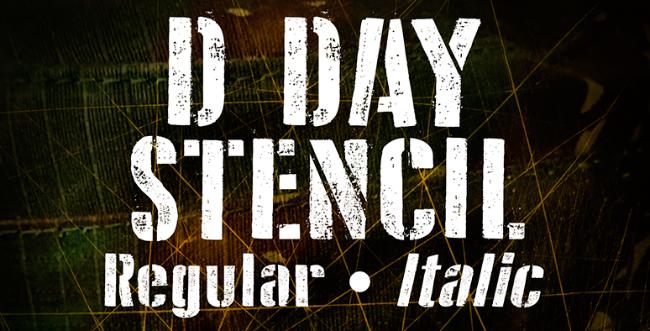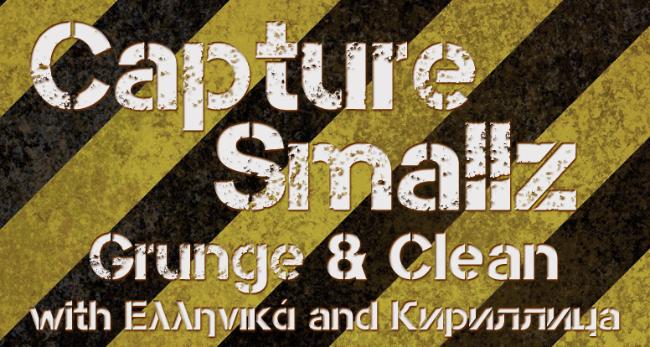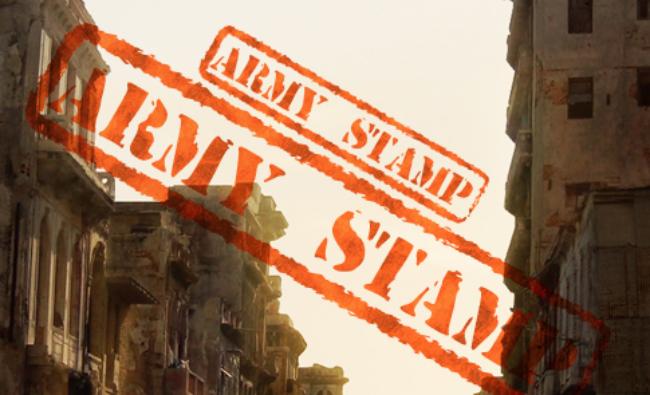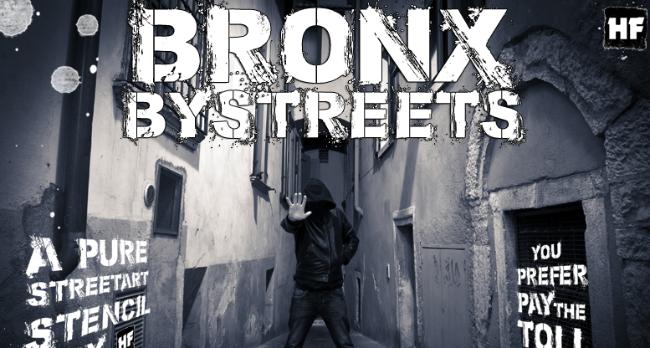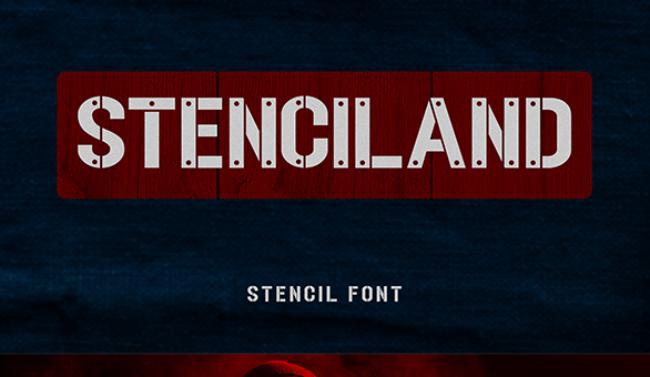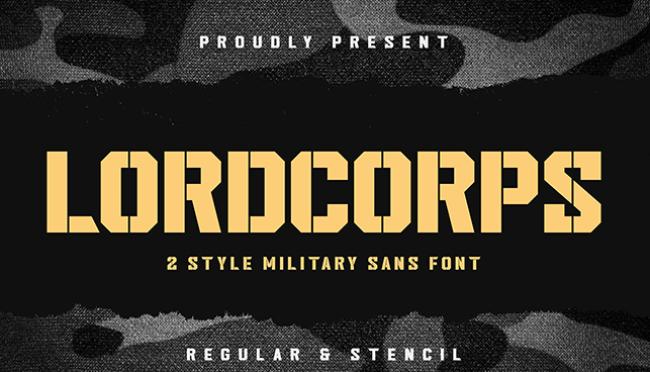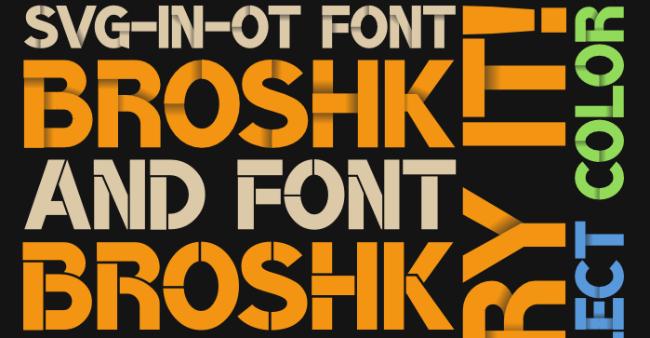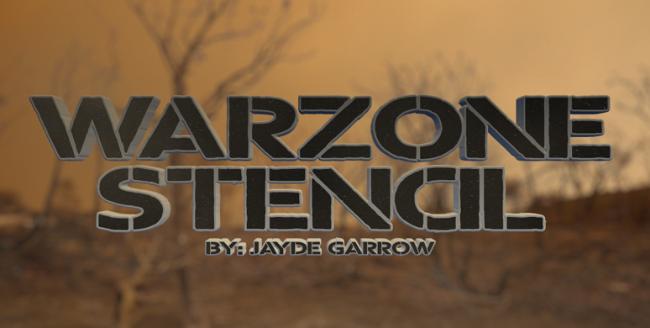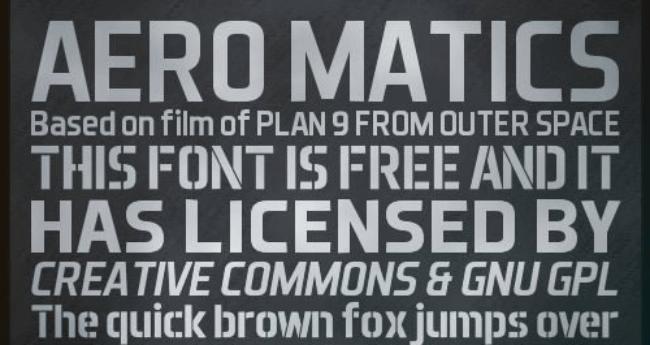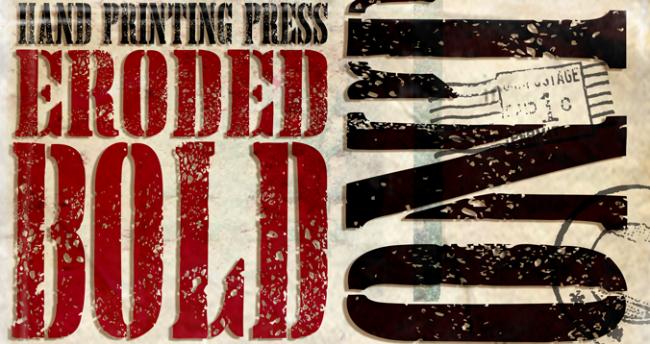
When it comes to design that conveys strength, discipline, and authority, military fonts stand out as a powerful choice. These fonts are widely used in branding, posters, video games, and media related to the armed forces, offering a rugged and commanding aesthetic that instantly grabs attention.
What Are Military Fonts?
Military fonts are typefaces inspired by the stenciled letters seen on military vehicles, uniforms, and equipment. They often feature bold, blocky letters with sharp edges or cut-out stencil designs, reflecting utility and durability. This style evokes a sense of order and toughness, making them perfect for projects that need to communicate strength and reliability.
Popular Styles of Military Fonts
There are various styles within the military font category. Some resemble the classic stenciled look, with breaks in the letters that mimic spray-painted markings on crates or vehicles. Others are solid, block letters that convey power and solidity without the cut-outs. Additionally, some military fonts have a distressed or worn effect, adding a vintage or battle-hardened feel.
Military Poster
When you need a typeface that commands attention and respect, Military Poster delivers with unwavering authority. This bold, structured font captures the essence of official military communications, making it perfect for designs that require a sense of discipline and strength. Whether you’re creating propaganda-style posters, military-themed graphics, or any project that needs to convey power and order, this font stands at attention and gets the job done.
Stamped
There’s something deeply satisfying about the authentic look of rubber stamp impressions, and Stamped captures that tactile quality perfectly. This font brings the nostalgic charm of vintage office stamps and official documents to your digital designs. With its slightly worn edges and authentic stamped appearance, it’s ideal for creating retro branding, vintage posters, or adding an official government document feel to your projects.
D Day Stencil
Inspired by the historic markings found on military equipment and vehicles during World War II, D Day Stencil brings authentic wartime typography to modern design. This stencil font perfectly recreates the utilitarian aesthetic of military logistics, where clarity and durability were paramount. It’s an excellent choice for historical projects, military commemorations, or any design that needs to evoke the gravity and significance of wartime communication.
Capture Smallz
Sometimes the most impactful designs come in compact packages, and Capture Smallz proves this point brilliantly. This condensed military-style font maximizes readability while maintaining a strong, authoritative presence. Perfect for headlines, badges, or any situation where you need to pack maximum punch into minimal space, it demonstrates that size doesn’t always determine impact in typography.
Army Stamp
Drawing inspiration from the countless rubber stamps that have marked military documents throughout history, Army Stamp brings institutional authority to your designs. This font perfectly captures the no-nonsense efficiency of military bureaucracy, with clean lines and a solid presence that speaks of official business. It’s particularly effective for creating authentic-looking military documents, vintage government communications, or adding credibility to formal announcements.
Bronx Bystreets
Street smart and unapologetically urban, Bronx Bystreets brings the raw energy of city warfare to typography. This font channels the gritty atmosphere of urban conflict zones, where survival depends on quick thinking and bold action. With its rough edges and street-tested durability, it’s perfect for gaming graphics, urban-themed designs, or any project that needs to convey toughness and street credibility.
Punishment
Some fonts whisper, others shout, but Punishment commands absolute silence with its intimidating presence. This heavy-duty typeface doesn’t ask for attention—it demands it. With letterforms that feel carved from stone and tempered in battle, it’s the perfect choice for projects that need to convey consequences, authority, or uncompromising strength. Whether you’re designing for action movies, military games, or powerful brand statements, this font means business.
Wargate
Like a fortified entrance to a military compound, Wargate stands as an imposing barrier between the ordinary and the extraordinary. This font embodies the strategic thinking and calculated precision of military planning, with letterforms that suggest both protection and power. It’s an excellent choice for security companies, military contractors, or any brand that wants to project an image of impenetrable strength and tactical superiority.
Panfleta Stencil
Born from the tradition of revolutionary pamphlets and underground communications, Panfleta Stencil carries the spirit of grassroots movements and covert operations. This stencil font perfectly captures the urgency and authenticity of messages that need to be reproduced quickly and distributed widely. It’s ideal for protest graphics, underground publications, or any design that needs to feel genuinely handmade and politically charged.
Stenciland
Welcome to Stenciland, where functionality meets artistry in the most practical way possible. This versatile stencil font draws from the rich tradition of utilitarian marking systems used across military and industrial applications. With its clean cuts and reliable readability, it bridges the gap between purely functional military stencils and modern design aesthetics, making it perfect for contemporary projects that need a touch of industrial authenticity.
Lordcorps
Command structure matters in military operations, and Lordcorps embodies the hierarchy and authority of high-ranking officials. This font carries itself with the dignity of a seasoned commander, combining traditional military aesthetics with a refined sense of leadership. Perfect for corporate military contractors, official ceremonies, or any project that needs to convey both military precision and executive authority.
BroshK
Sometimes military typography needs to break the rules, and BroshK does exactly that with rebellious style. This font combines military structure with unconventional flair, creating a typeface that’s both disciplined and disruptive. It’s perfect for modern military-themed games, edgy brand identities, or any project that wants to challenge traditional military aesthetics while maintaining that essential sense of strength and purpose.
Alberto Stencil
Named with the familiarity of a trusted comrade, Alberto Stencil brings a personal touch to military-grade typography. This font manages to feel both professional and approachable, combining the precision of stencil cutting with a more humanized character set. It’s excellent for military memorials, veteran organizations, or any project that needs to honor the human element within military service while maintaining operational clarity.
Army Buster
When conventional forces aren’t enough, you call in Army Buster. This font packs the explosive power of specialized military units, with letterforms that suggest overwhelming force and tactical superiority. Built for situations that demand maximum impact, it’s the perfect choice for action-packed designs, military gaming interfaces, or any project that needs to convey the devastating effectiveness of elite military operations.
Warzone Stencil
Forged in the heat of active combat zones, Warzone Stencil carries the authenticity of battlefield communications. This font understands that in conflict situations, clear communication can mean the difference between life and death. With its battle-tested reliability and unmistakable military aesthetic, it’s ideal for military simulations, war documentaries, or any design that needs to convey the serious reality of armed conflict.
Aero Matics Stencil
Taking flight from the precision world of aviation mathematics, Aero Matics Stencil combines the technical accuracy of aerospace engineering with military stencil aesthetics. This font speaks the language of fighter pilots and aircraft mechanics, where every calculation matters and precision is literally a matter of life and death. Perfect for aviation-themed projects, technical manuals, or designs that need to convey both military authority and scientific accuracy.
Damage Inc
When you’re in the business of controlled destruction, your typography needs to match your mission. Damage Inc represents the calculated chaos of military operations where precise force application is the key to success. This font embodies the professional destructive capabilities of military specialists, making it perfect for action games, military contractor branding, or any project that needs to suggest competent, professional force application.
Grenade Stencil
Compact, powerful, and designed for maximum impact, Grenade Stencil packs explosive visual punch into every letterform. This font captures the concentrated power of military ordnance, where small packages deliver devastating results. With its tight, focused design and unmistakable military heritage, it’s perfect for high-impact headlines, military-themed logos, or any design that needs to suggest controlled explosive power.
Hand Printing Press Eroded
Time and battle have weathered this font like an old printing press that’s seen decades of wartime service. Hand Printing Press Eroded tells the story of communications equipment that’s survived countless conflicts, bearing the scars and wear of extensive military use. The eroded edges and battle-worn appearance make it perfect for historical military documents, vintage war correspondence, or any project that needs to convey the passage of time and the weight of history.
Comando Valenciano
Elite special forces units around the world share certain characteristics: precision, discipline, and an unmistakable presence. Comando Valenciano embodies these qualities with the regional pride of specialized military units. This font combines international military standards with distinctive character, making it ideal for special operations branding, elite unit insignia, or any project that needs to convey the exclusive nature of military special forces while maintaining that essential sense of professional competence.
War Machine Stencil
War Machine Stencil is a bold and rugged typeface designed to capture a military-inspired, industrial look. With its sharp edges and clean stencil cuts, this font brings an authoritative and powerful aesthetic to your design projects. Perfect for posters, tactical branding, or any creative work needing a strong, combat-ready style, War Machine Stencil stands out with its striking, utilitarian appeal.
Stencil Style New
Stencil Style New is a modern take on the classic stencil font, combining clean lines with a fresh, contemporary twist. Ideal for labeling, branding, or edgy design work, this typeface keeps the familiar cutout stencil appearance while adding a sleek update that feels current and versatile. Whether you’re working on military-themed graphics or urban streetwear branding, Stencil Style New delivers both clarity and impact.
Shattered
Shattered is a dramatic, eye-catching font that lives up to its name. Designed with jagged, fragmented letterforms, this typeface is perfect for creating tension, energy, or a sense of chaos in your designs. Whether used in horror posters, rock album covers, or video game graphics, Shattered delivers an aggressive and broken aesthetic that commands attention and makes a bold statement.
Conclusion
If you want your design to evoke discipline, strength, and authenticity, incorporating military fonts is a smart move. Their bold, rugged style not only catches the eye but also reinforces the message of resilience and authority. Whether for print or digital, military fonts remain a timeless tool in the designer’s arsenal.